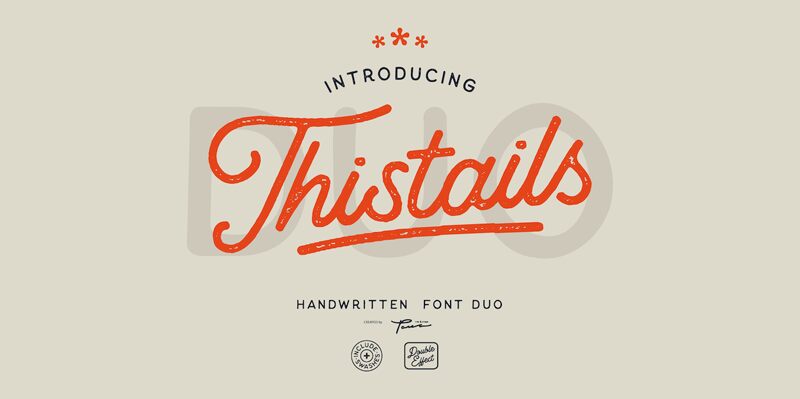
Thistails Sans, designed by Panatype Studio, is a unique display font with an eroded style. This font duo offers a modern vintage look and includes both script and Display Sans serif typefaces. The combination of these two lovely fonts makes it perfect for various design projects.
Whether you need digital lettering, a striking logo, eye-catching t-shirt designs, or professional print materials like business cards, Thistails Sans has got you covered. Its versatile nature also lends itself well to branding materials, inspirational quotes, and even nature photography.
Crafted with care and hand-painted details, this font brings a distinctive touch to any creative endeavor.